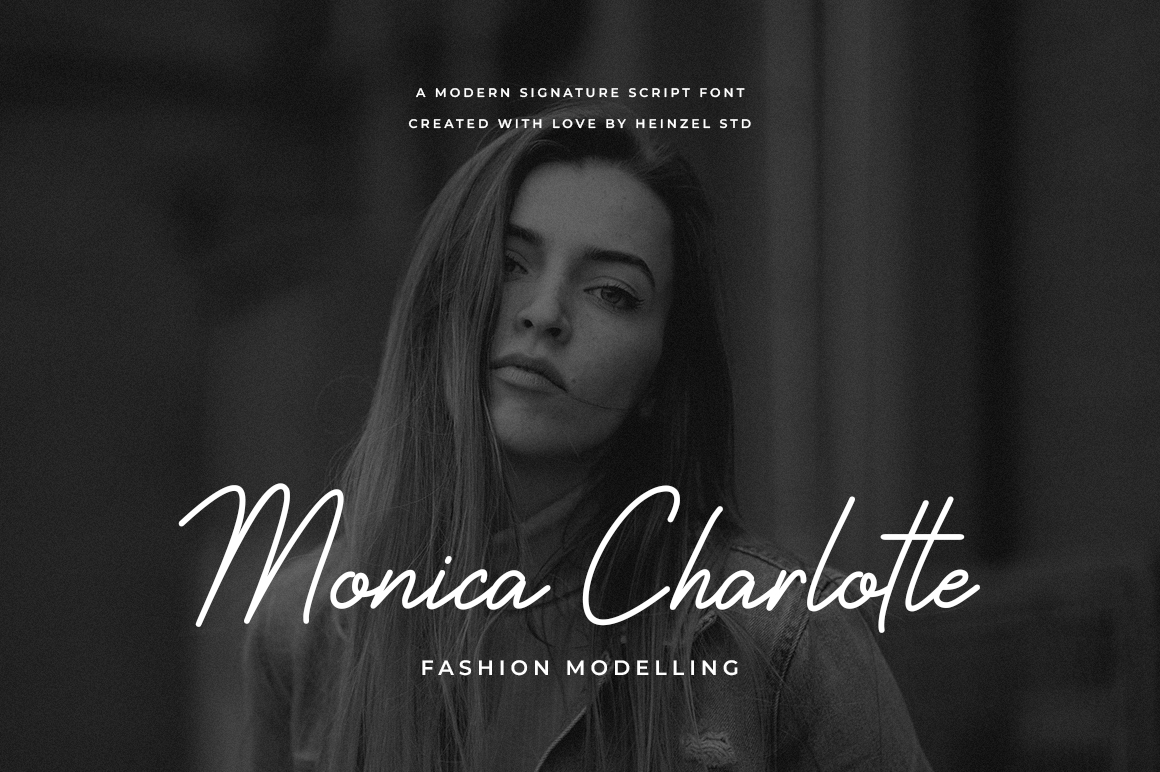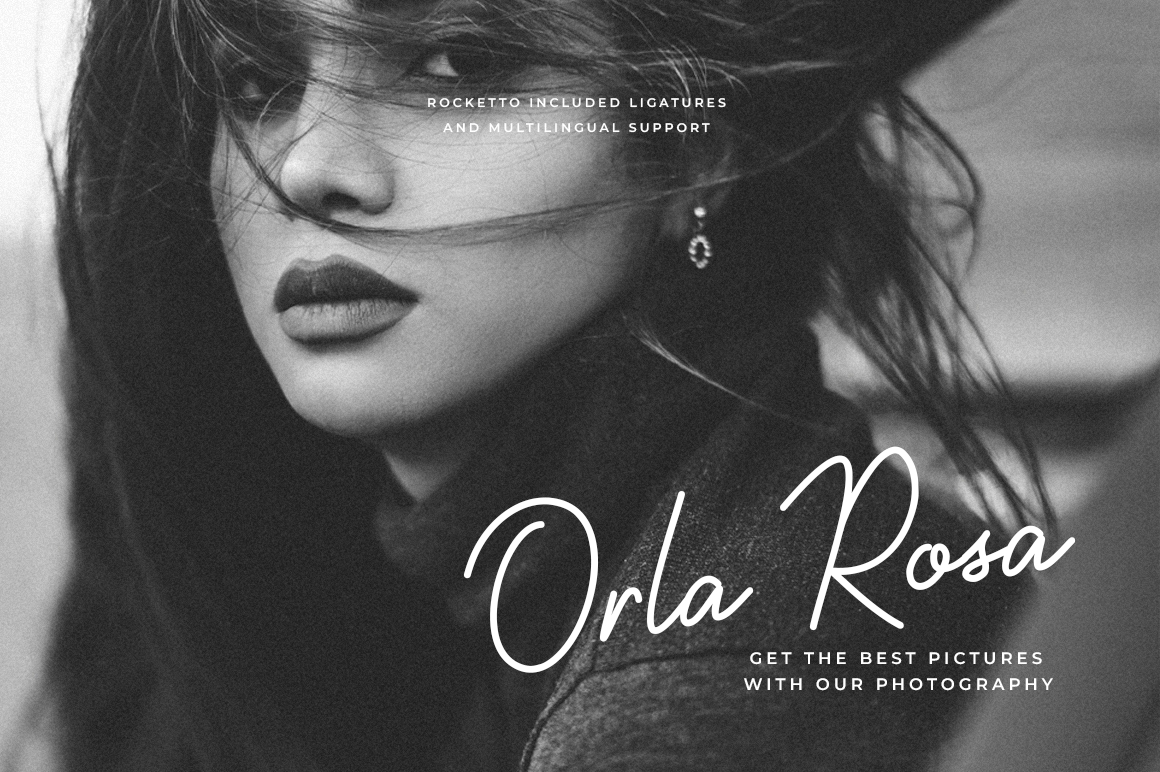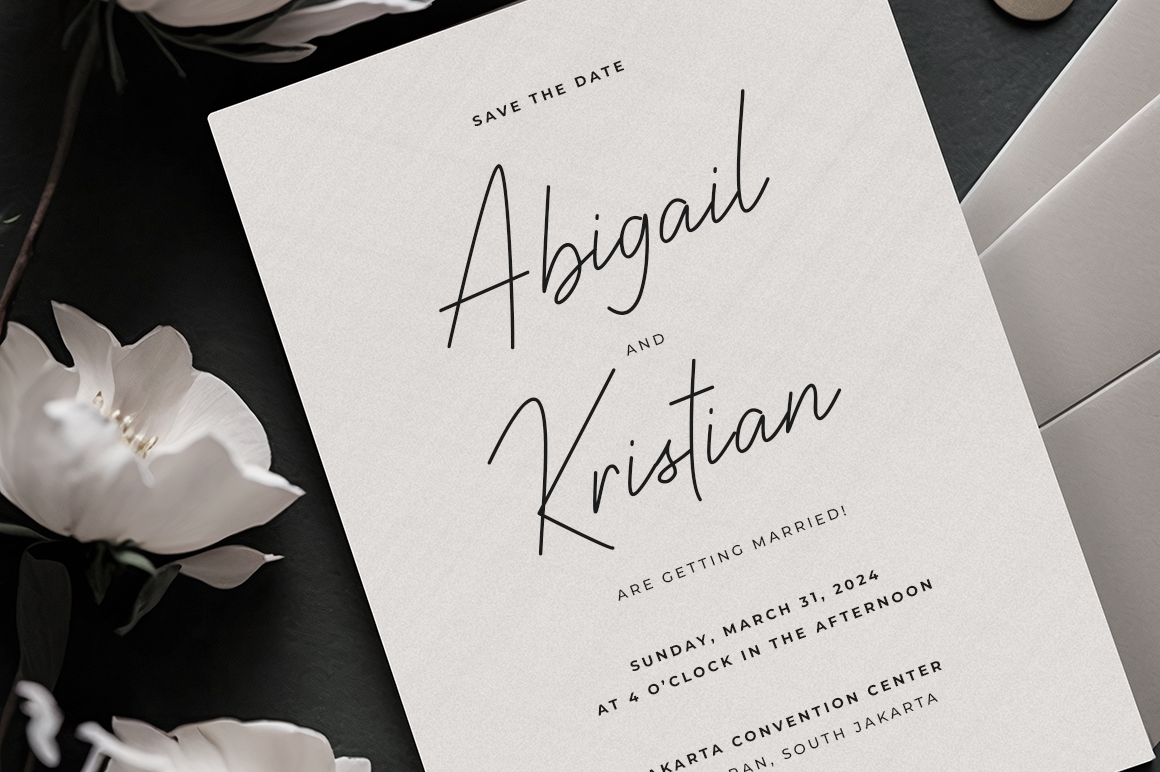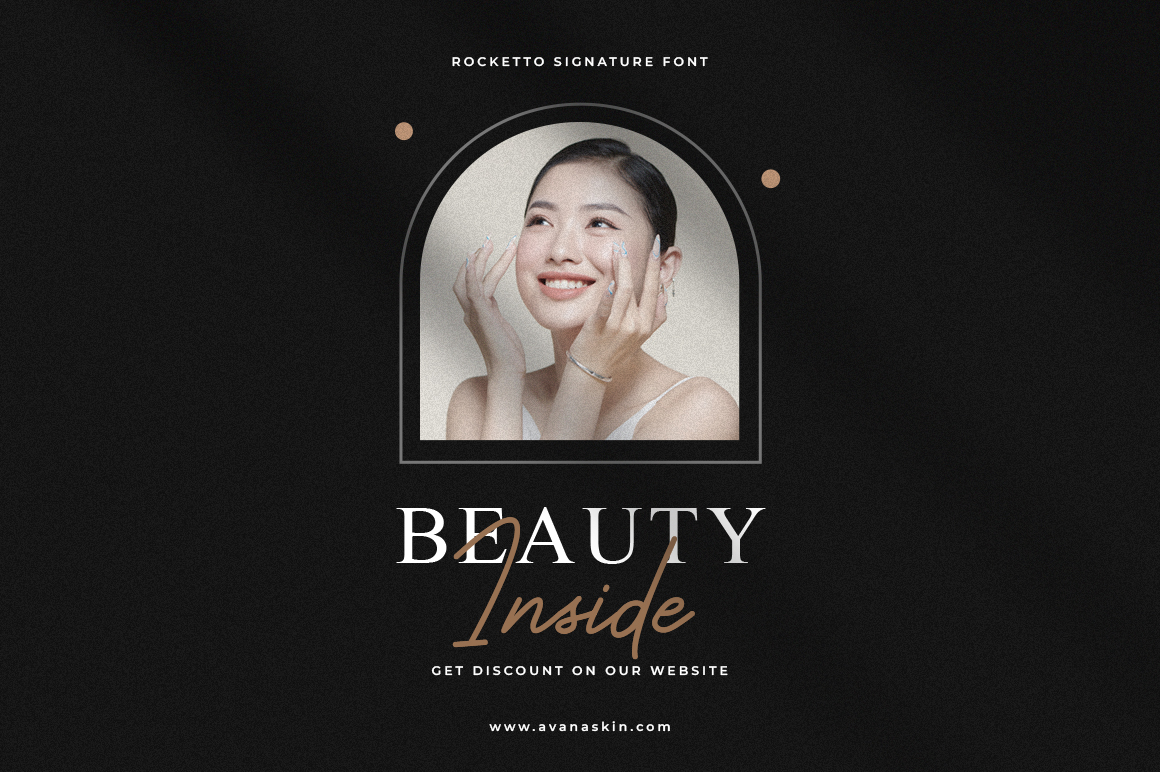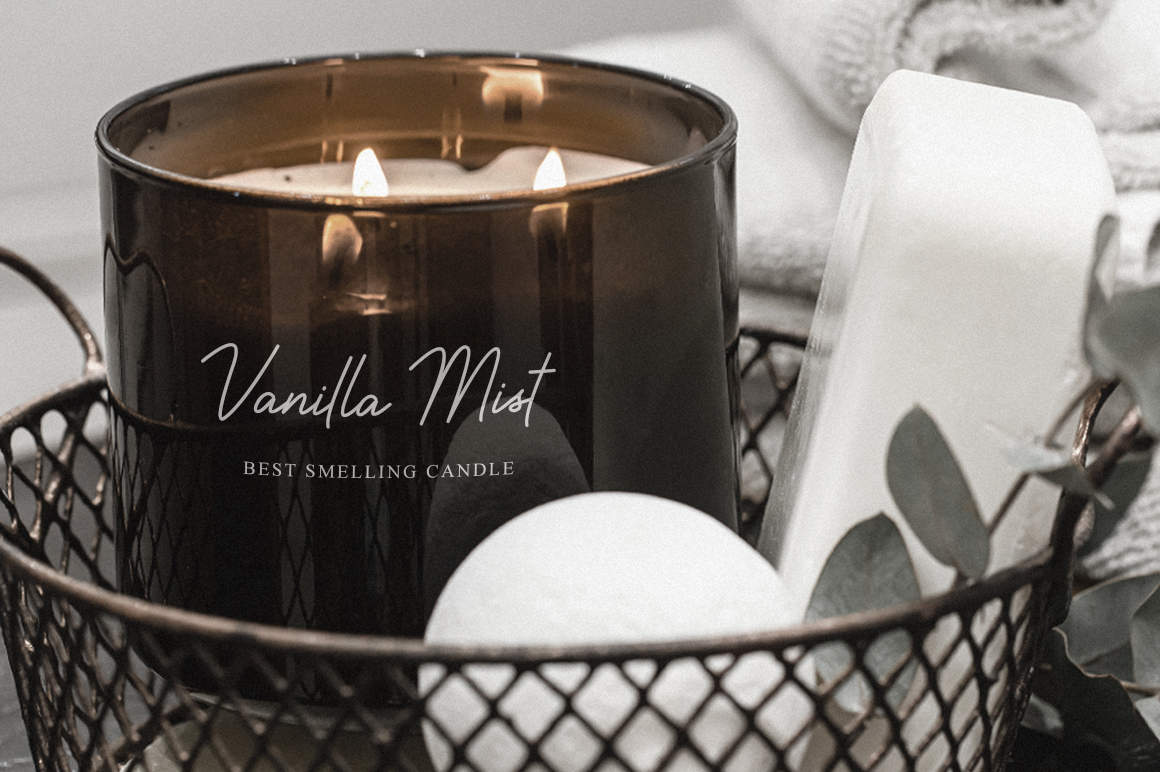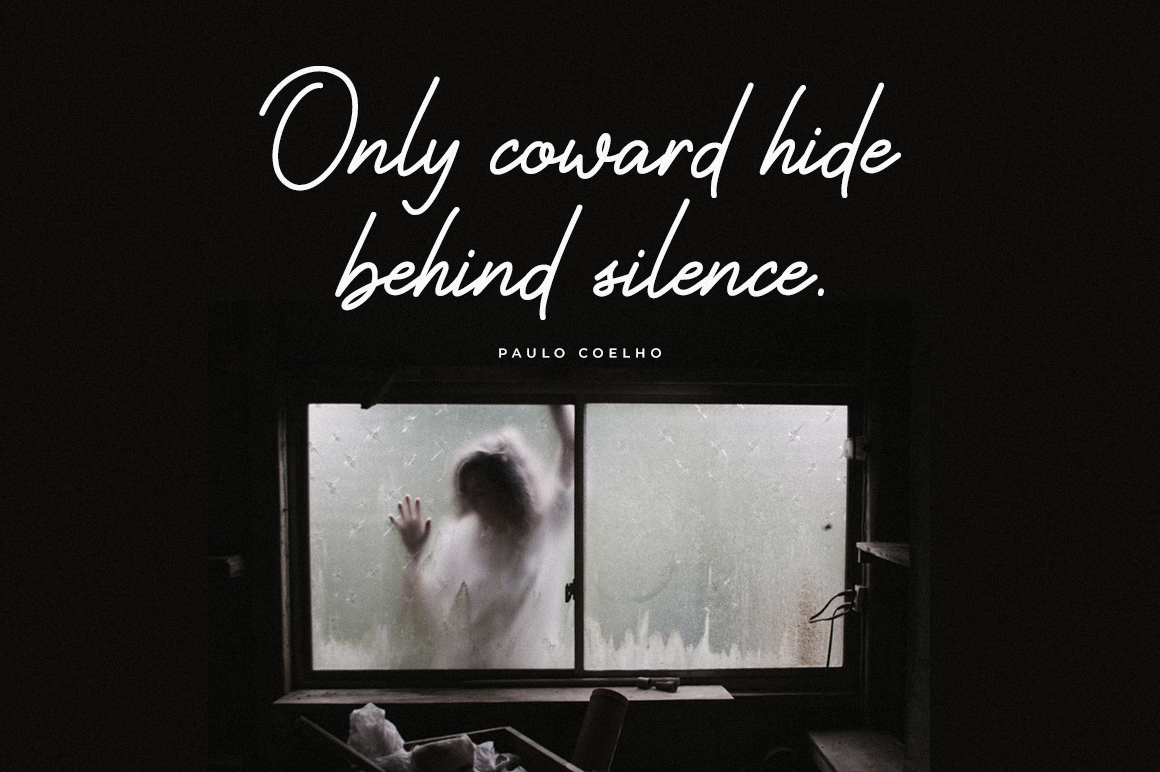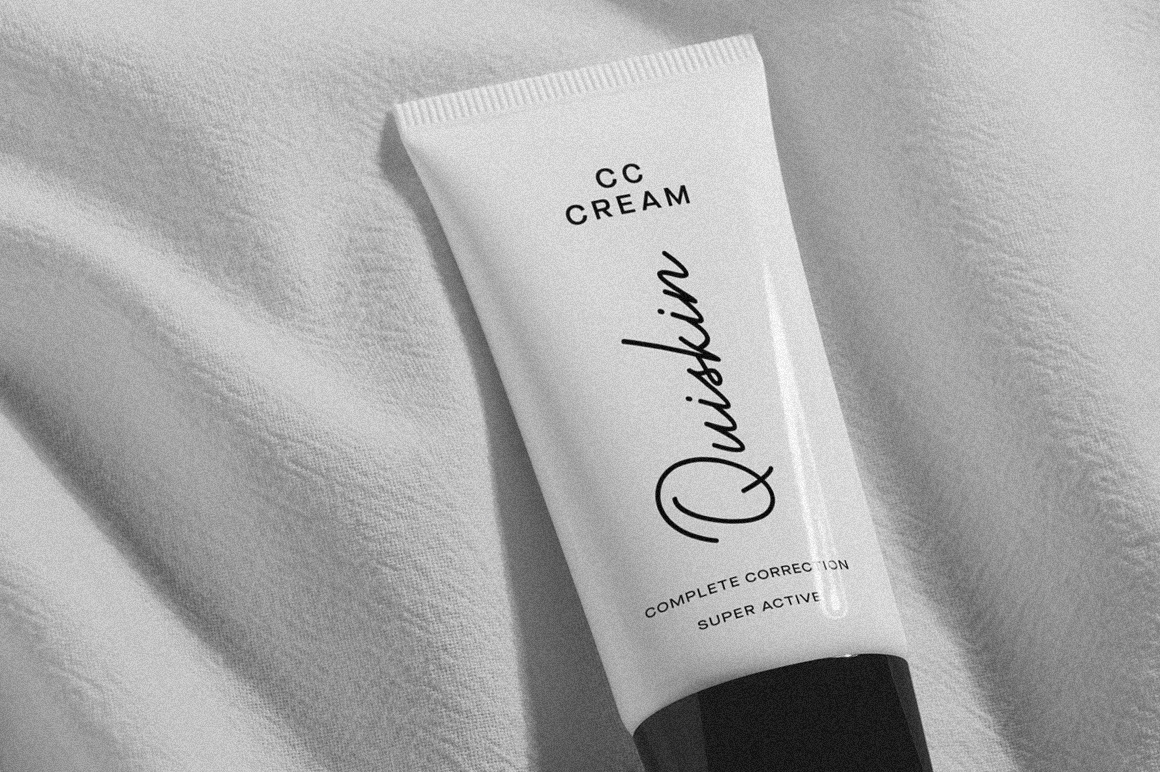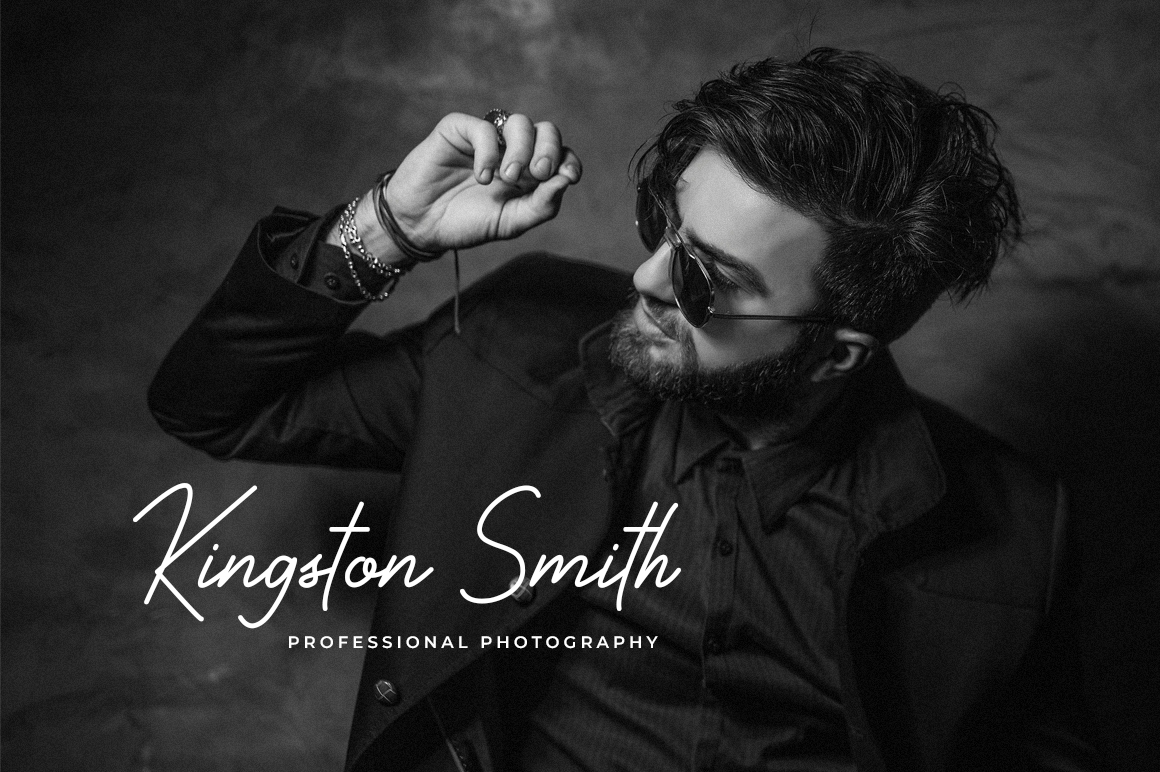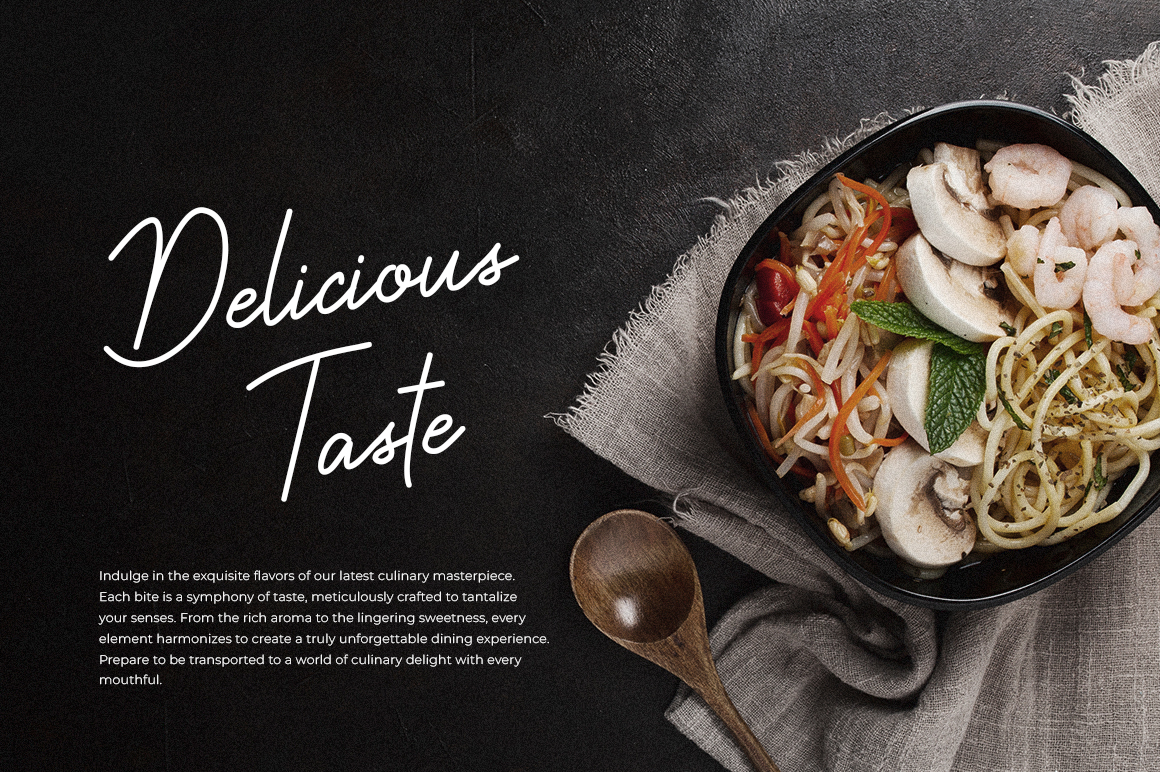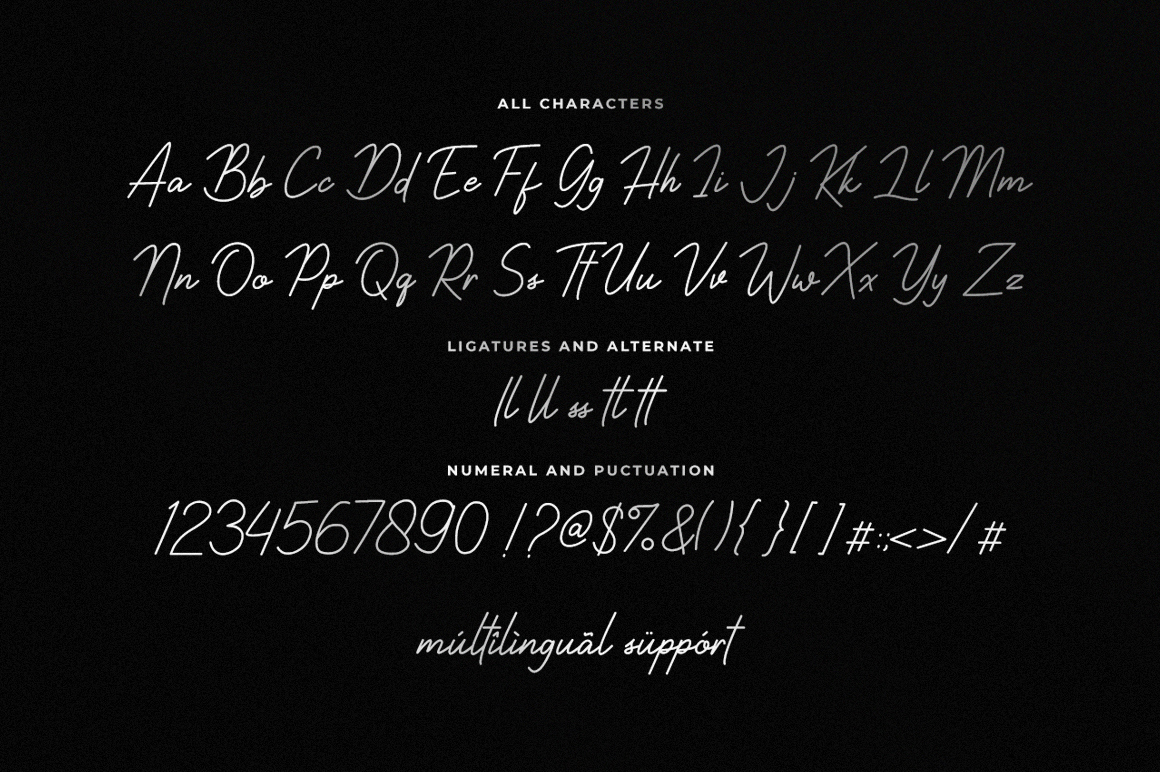
Rocketto is a magical handwritten font carefully created with a touch of elegance. It will elevate a wide range of design projects to the highest level, be it branding, headings, wedding designs, invitations, signatures, logos, labels, and much more!
Rocketto Features :
- Ligatures & Alternate
- Uppercase & Lowercase
- Numbers & Punctuation
- Multilingual Support
This character set supports the following 21 languages : Afrikaans, Basque, Breton, Catalan, Danish, Dutch, English, Finnish, French, Gaelic (Irish, Scots), German, Icelandic, Indonesian, Irish, Italian, Norwegian, Portuguese, Saami (Southern), Spanish, Swahili, Swedish.